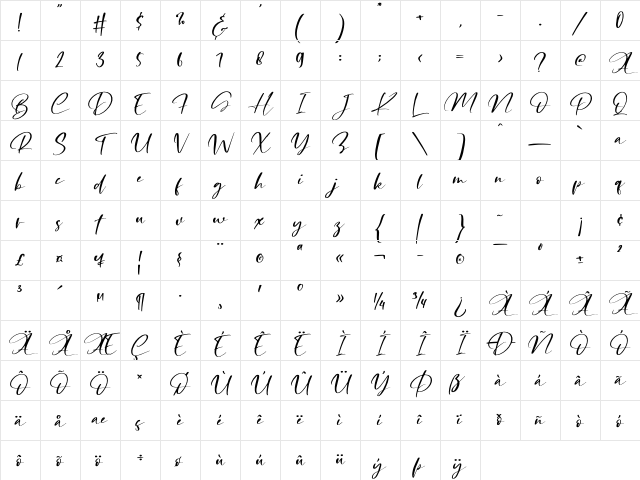
Rosalinda Regular
Foundry: Letterena Studios
Designer: Heru Utama Putra
Design Context for Rosalinda
Rosalinda is a composed and adaptable typeface that performs quietly and consistently across a wide range of design contexts.